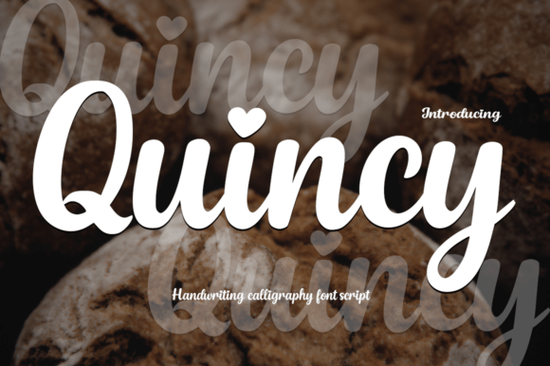
If you're looking for a modern calligraphy font that feels elegant but still personal, Quincy is worth a closer look. It's a handwriting-style script font with flowing strokes, graceful curves, and one small detail that makes it stand out tiny heart-shaped dots on the letters "i" and "j." The font also comes bundled with Playtoon, a bold cartoon-style display font that's great for kids' projects and playful branding.
What makes Quincy different from other script fonts?
Plenty of calligraphy fonts look beautiful, but Quincy manages to feel both refined and approachable at the same time. The letterforms have a modern calligraphy style with smooth, connected strokes that look natural rather than stiff. It's the kind of font that adds warmth to a design without overwhelming it.
The heart-shaped dots are a subtle but memorable touch. They give the font a feminine, whimsical quality that works well for projects where you want to convey emotion think wedding invitations, love quotes, or heartfelt greeting cards. If you've tried rough brush script fonts before but need something cleaner and more polished, Quincy is a solid alternative.
Where does this font work best?
Quincy is a natural fit for projects that need a personal, elegant feel. Here are some common uses:
- Wedding invitations and save-the-dates – The flowing script and heart details add romance without looking overly formal.
- Logos and branding – Works well for boutiques, florists, beauty brands, and lifestyle businesses.
- Social media graphics – Quotes, announcements, and story templates look polished with balanced letterforms.
- Greeting cards and stationery – The handwritten feel makes messages feel genuine and personal.
- Print-on-demand products – Mugs, tote bags, and t-shirts with inspirational phrases pair nicely with this style.
If you're designing for a younger or more romantic audience, Quincy pairs well with soft color palettes and simple layouts. It's not the kind of font that needs a lot of extras to look good it does the heavy lifting on its own.
What is Playtoon and how can you use it?
Playtoon is the bonus font included with this bundle, and it's a completely different energy. It's a bold, cartoon-style display font with expressive letter shapes that feel fun and lively. Where Quincy is soft and elegant, Playtoon is loud and playful.
This makes it a good match for:
- Kids' books and storybooks – The exaggerated shapes grab attention and feel approachable for young readers.
- Comics and illustrations – Great for titles and sound effects.
- Educational materials – Worksheets, flashcards, and classroom posters benefit from its friendly look.
- Fun branding – If your brand has a playful personality, Playtoon helps express that.
Having both fonts in one bundle gives you range. You can use Quincy for elegant, emotional projects and Playtoon for anything that needs energy and character. If you also work on children's designs, you might want to explore other options like child-friendly script fonts or romantic script styles for more variety in your font library.
How does it compare to other popular calligraphy fonts?
There are a lot of calligraphy fonts available, so it helps to know where Quincy fits. It sits in the "modern calligraphy" category more polished than raw brush lettering, but less traditional than formal copperplate scripts. Compared to something like the vintage postman font, Quincy feels more contemporary and feminine. And while Saturday-style script fonts tend to be more relaxed and casual, Quincy leans slightly more elegant.
One thing worth noting: the heart-shaped dots aren't just decorative they help with readability. The distinct "i" and "j" markers make the font easier to read at smaller sizes, which is useful for body text on invitations or printed products.
Is this bundle a good value for designers and sellers?
For the price of one font file, you're getting two distinct typefaces. That's a practical deal, especially if you create different types of designs. A wedding invitation designer can use Quincy for client work, while a kids' content creator can put Playtoon to use on covers and headers.
For print-on-demand sellers, both fonts open up different product categories. Quincy works for the gift and wedding market, while Playtoon taps into children's products and playful apparel.
Quick checklist before you start designing
- ✅ Test both fonts at different sizes to see where they look best.
- ✅ Pair Quincy with a simple sans-serif for contrast in layouts.
- ✅ Use Playtoon for headlines and display text, not long paragraphs.
- ✅ Experiment with the heart-shaped "i" and "j" dots they're the detail that makes Quincy memorable.